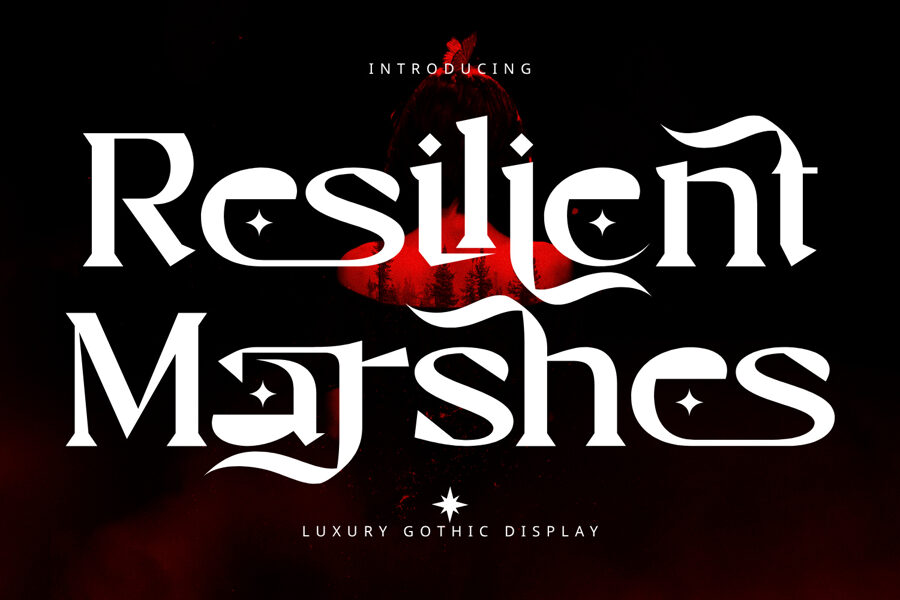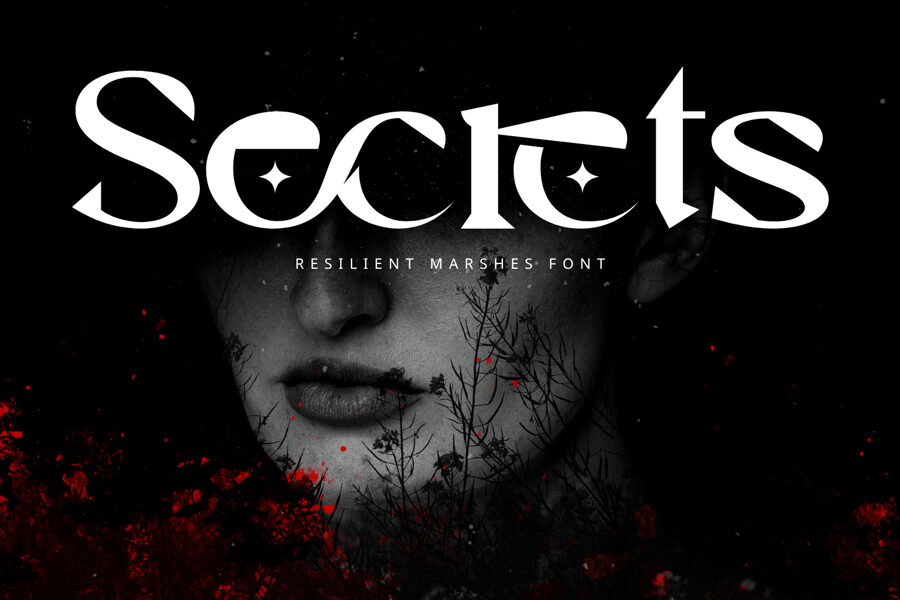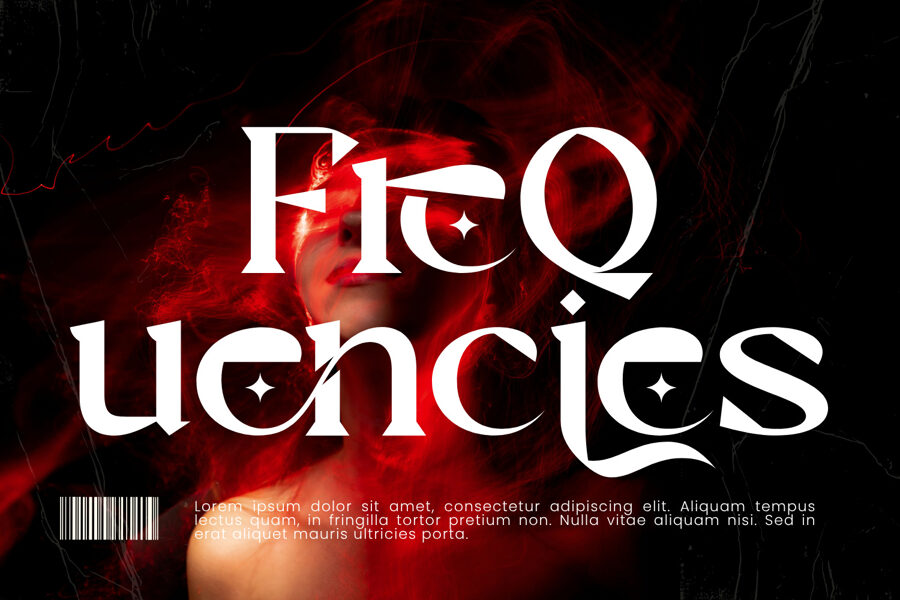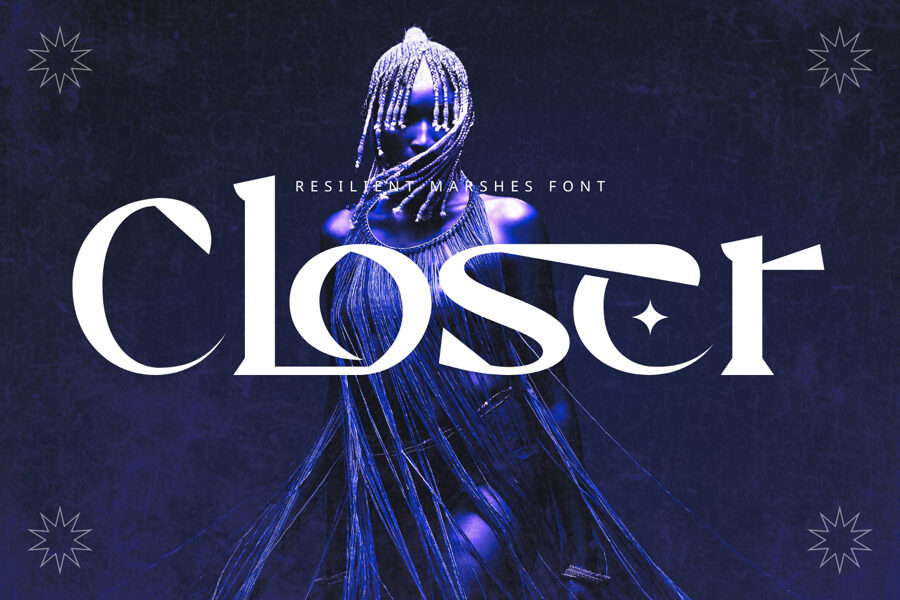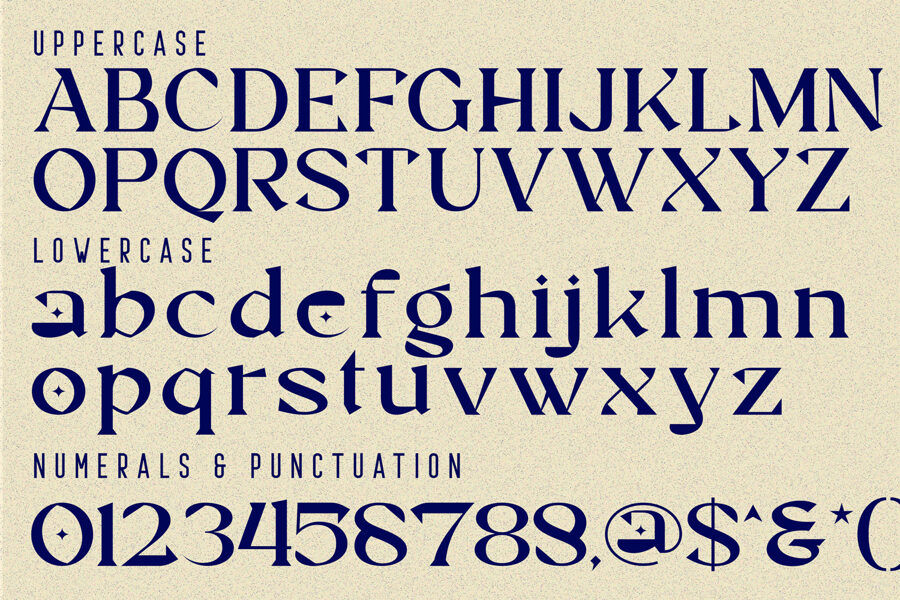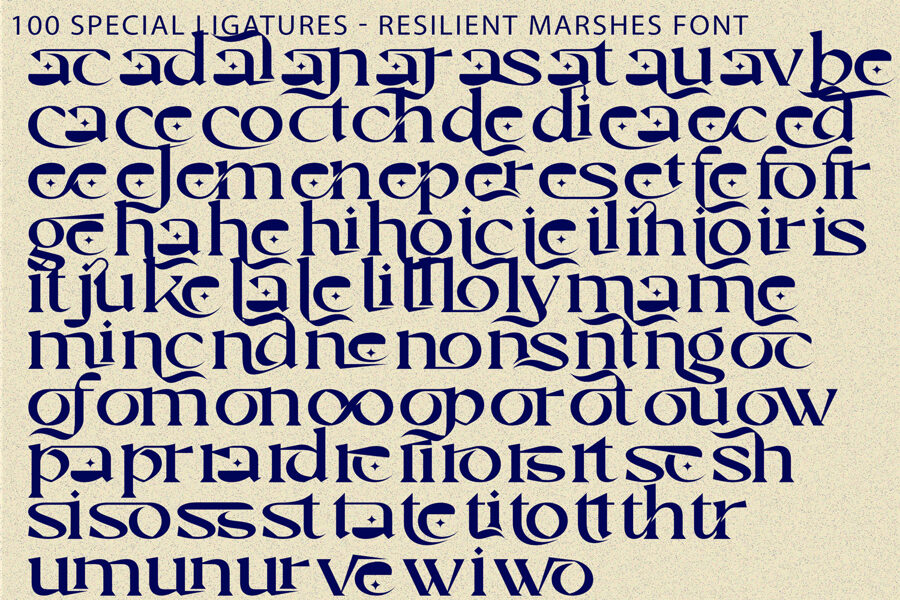
Resilient Marshes Font
This gothic serif font combines elegance, mystery, and artistry, making it perfect for sophisticated designs. With intricately crafted letterforms, high-contrast strokes, and ornate details, it creates a captivating visual presence.
Decorative accents and flowing lines add a touch of magic. Ideal for fantasy, luxury, and creative projects, it’s great for book covers, gaming titles, logos, editorials, and more, bringing a unique blend of timelessness and imagination to your work.